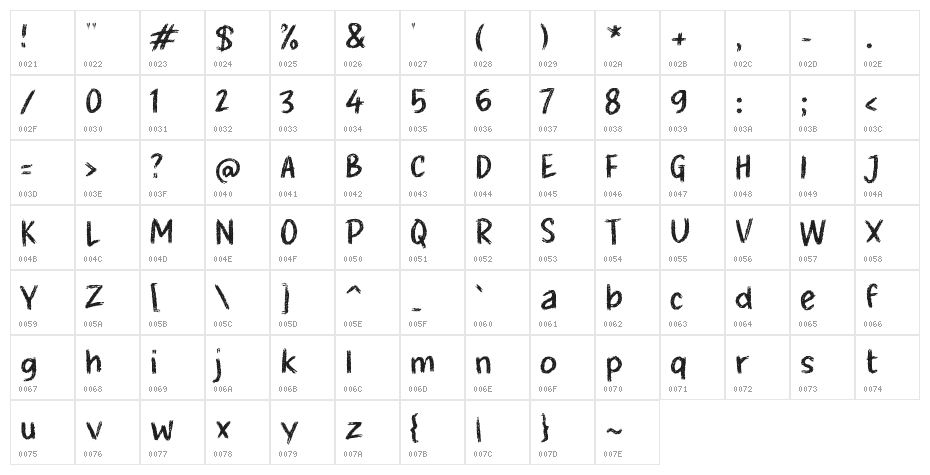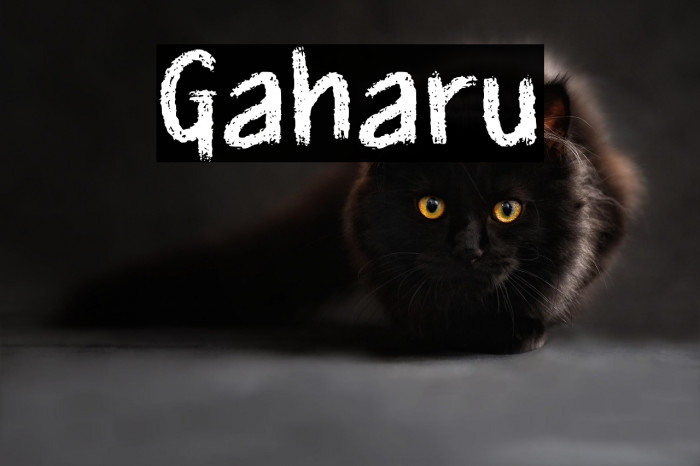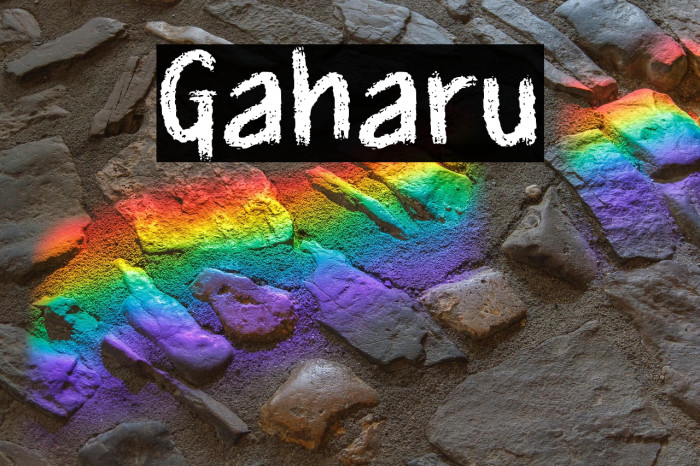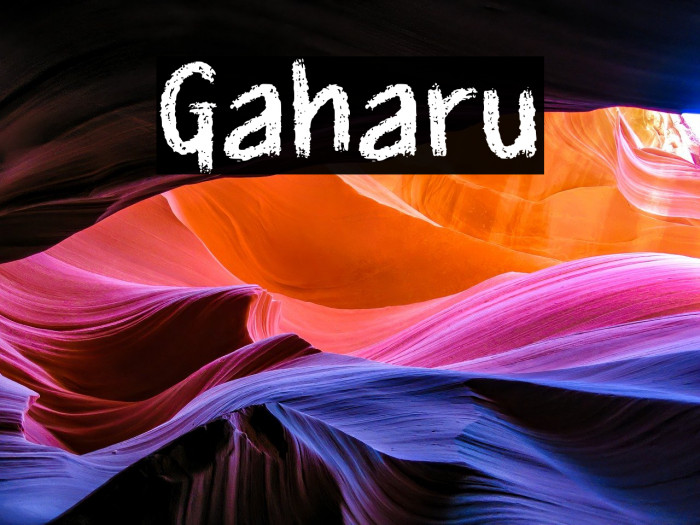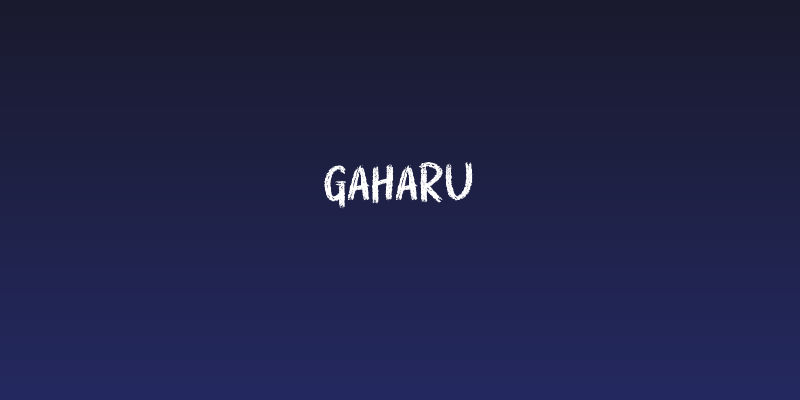
Gaharu Font
Gaharu Description
This font features a bold, textured appearance reminiscent of chalk or crayon strokes, giving it a hand-drawn and organic feel. The uppercase and lowercase letters maintain a consistent style, with slightly irregular edges that add to its casual and playful character. The numerals and special characters follow the same aesthetic, ensuring a cohesive look across all glyphs. The font's rough texture and uneven lines create a sense of movement and energy, making it ideal for projects that require a dynamic and informal touch.
| Proposed Projects | Ideal for children's book covers, playful posters, casual branding, and creative social media graphics. |